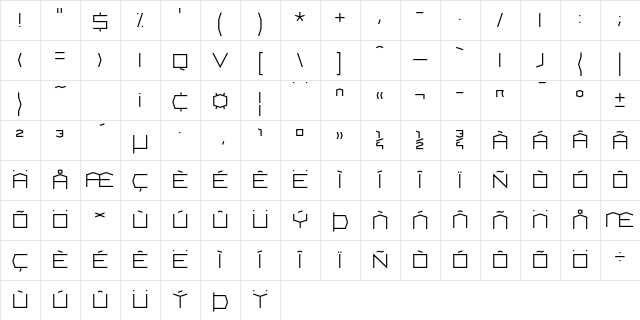
Complete Wrocislaw Normal glyph index. Displaying only characters natively supported by Wrocislaw Normal font.
Wrocislaw is a composed and adaptable typeface that performs quietly and consistently across a wide range of design contexts.
Who designed the Wrocislaw Normal font?